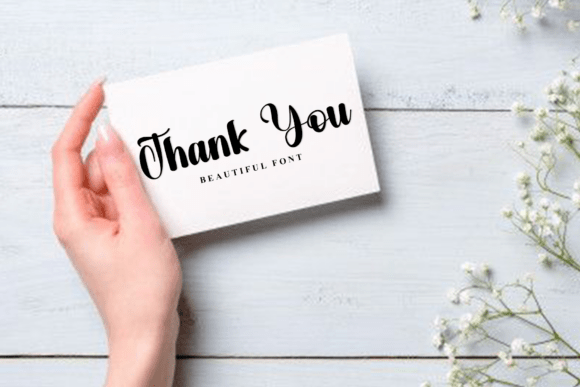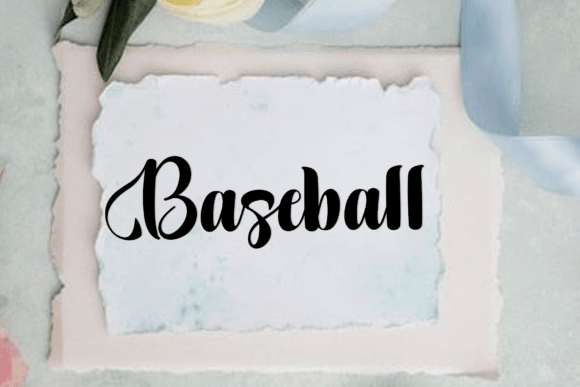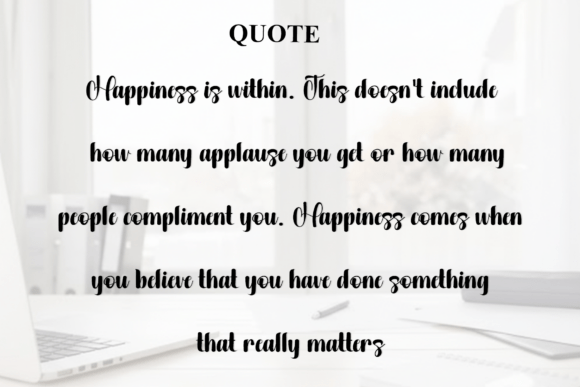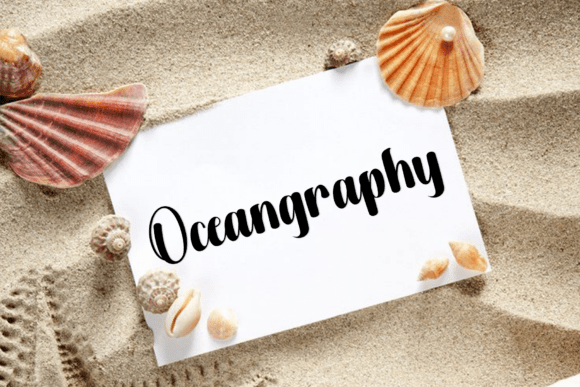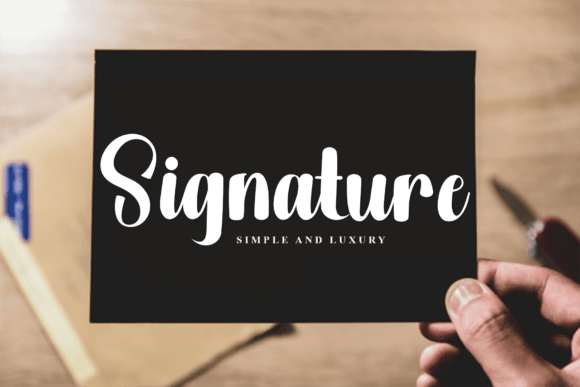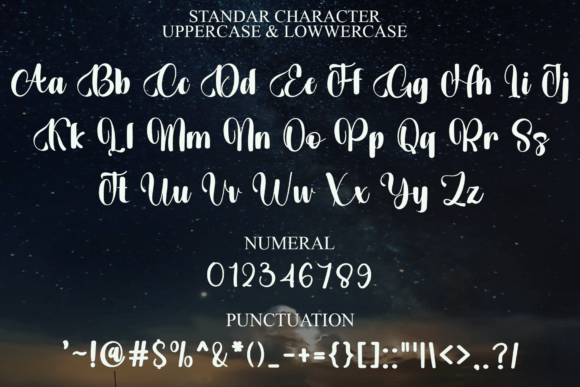
The Magic of the Holiday Season in Type
As you sit down to plan your holiday designs, the excitement of the season is palpable. You want your creations to capture the whimsy and wonder of the time of year. And that’s where the Amsterdam Handmade Font comes in – a festive and merry typeface that embodies the spirit of the holiday season.
This enchanting font is the perfect addition to your design toolkit, adding a touch of nostalgia and cheer to your projects. With its decorative elements and whimsical flair, Amsterdam Handmade Font brings a sense of magic to your typography. Whether you’re creating greeting cards, gift tags, or holiday-themed projects, this font is sure to delight. And with its PUA encoding, you’ll have access to all the amazing glyphs and ligatures with ease, making it a valuable asset for any designer.
Amsterdam Handmade Font Key Features
- Font Family: Amsterdam Handmade is a script font, available in a single style.
- Unique Characteristics: Amsterdam Handmade features a handmade, brush-like feel with subtle imperfections and irregularities, giving it a unique and organic look.
Amsterdam Handmade Font Review
At first glance, the Amsterdam Handmade Font is a beautiful, elegant script font that’s perfect for creative projects that require a touch of sophistication.
- ✨ Unique, handwritten feel that’s perfect for adding a personal touch to designs.
- ✨ Beautifully crafted ligatures and swashes that add a level of sophistication.
- ✨ Wide range of languages supported, making it a great option for international designs.
However, there are some limitations:
- ⚠️ Limited font sizes and weights, which may limit its versatility in certain designs.
- ⚠️ Some characters may not be as polished as others, which can be distracting in certain contexts.
- ⚠️ Not ideal for small text sizes, as the font can become difficult to read.
Overall, the Amsterdam Handmade Font is a beautiful and unique font that’s perfect for designers looking to add a touch of elegance to their projects. While it has some limitations, it’s still a great option for the right designs.
Getting the Most Out of Amsterdam Handmade Font
For optimal results, use Amsterdam Handmade Font in conjunction with a high-quality image or background. This will help to create a unique and visually appealing design.
Amsterdam Handmade Font is ideal for:
- Artistic and creative projects
Alternatives to Amsterdam Handmade Font
The Great Vibes Font is a modern, handwritten font with a whimsical feel. It’s perfect for creating a casual, friendly atmosphere in branding, advertising, and digital media. Great Vibes is more cursive and fluid compared to the Amsterdam Handmade Font, which is more distressed and rough.
The Carolyna Pro Font is a modern, elegant font with a sophisticated feel. It’s ideal for creating high-end branding, luxury packaging, and fashion designs. Unlike Amsterdam Handmade Font, Carolyna Pro is more refined and polished, making it suitable for formal and professional projects.
Yes, Amsterdam Handmade Font comes in multiple weights, ranging from Light to Bold, as well as an Italic and a Regular version. This variety allows designers to choose the perfect weight and style to suit their design needs.